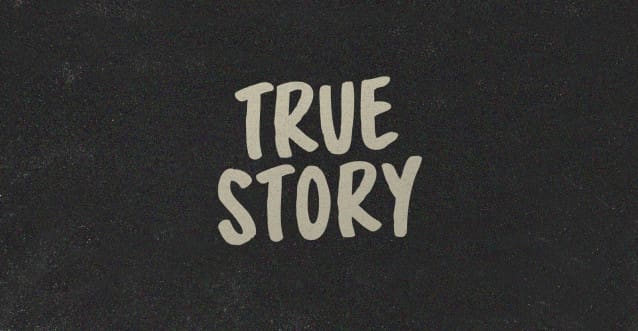
True Story Font
True Story Font Handwritten Brush Marker Font. It’s the satisfaction of coherent falsehood, the insufficiency of correspondence. No word a lie, it’s more than the facts that I’ve derived from the implausible. It’s the way forger Elmyr de Hory died in the arms of Mike Forgy. True story.